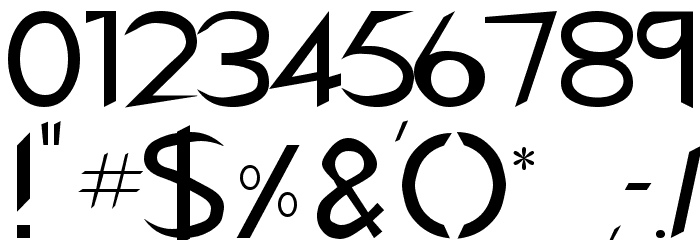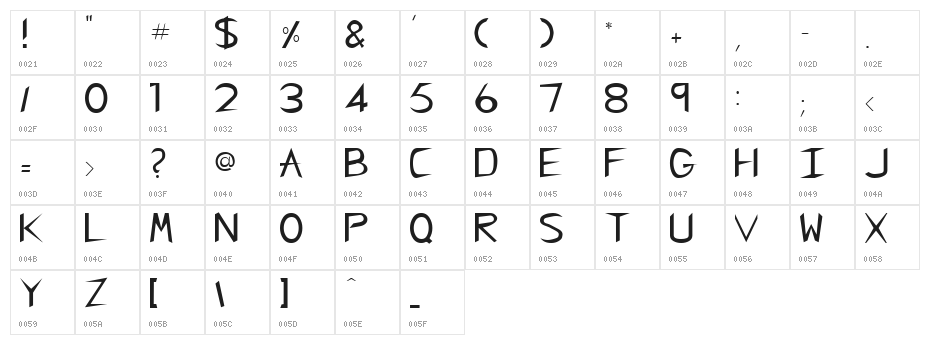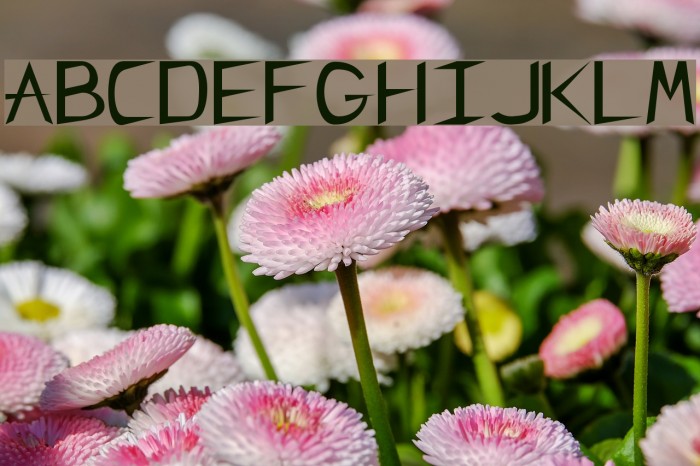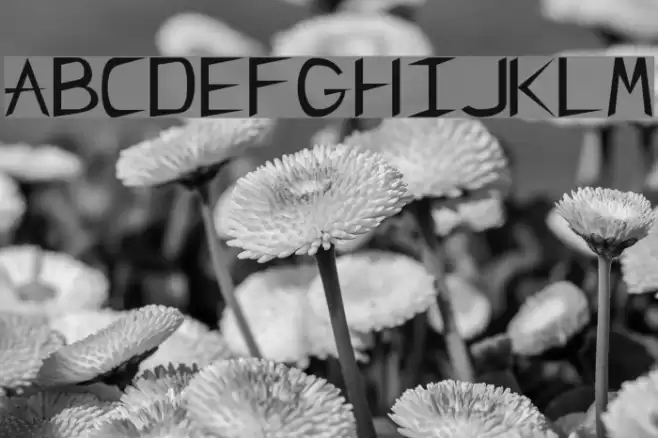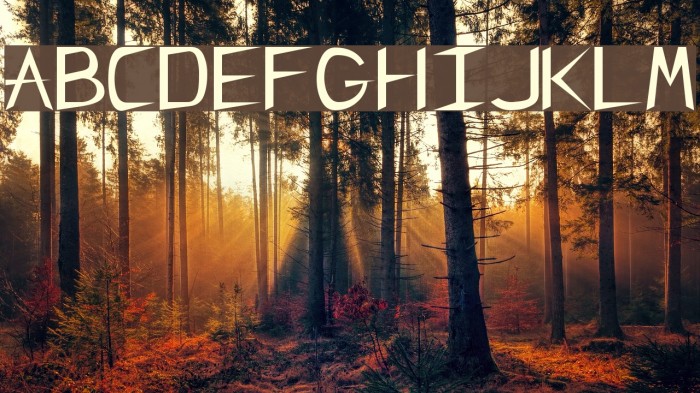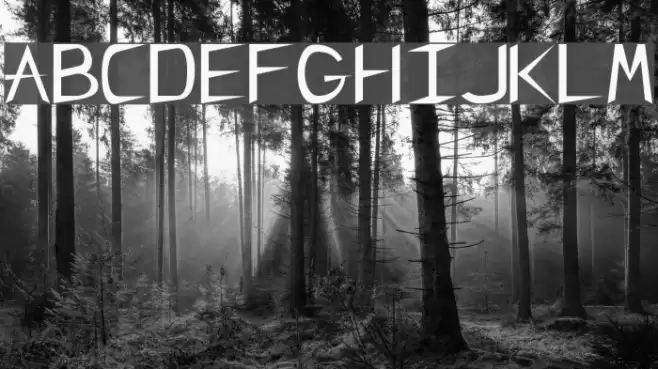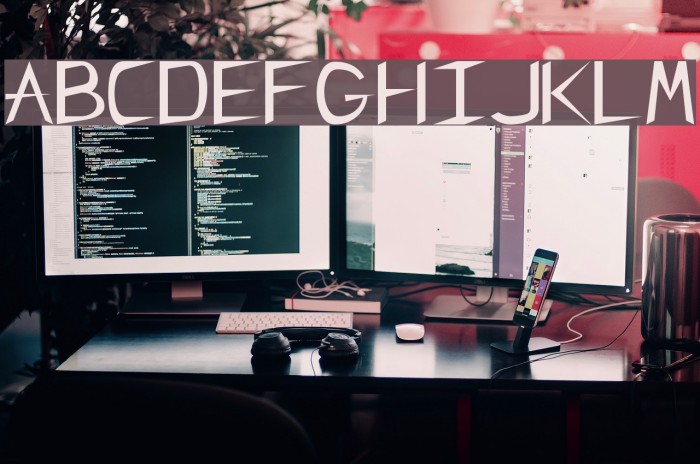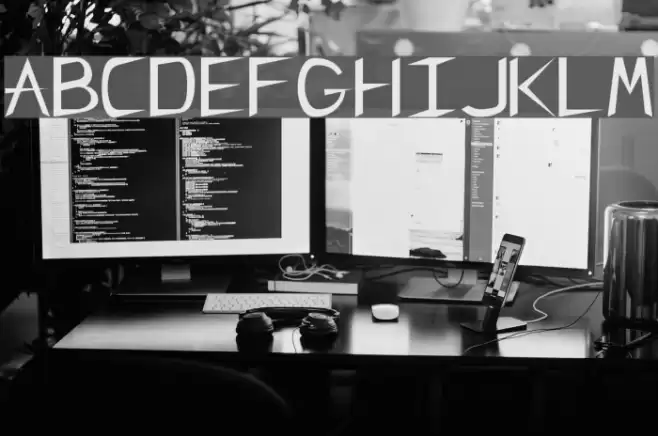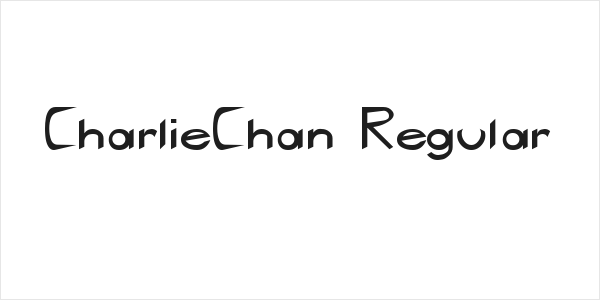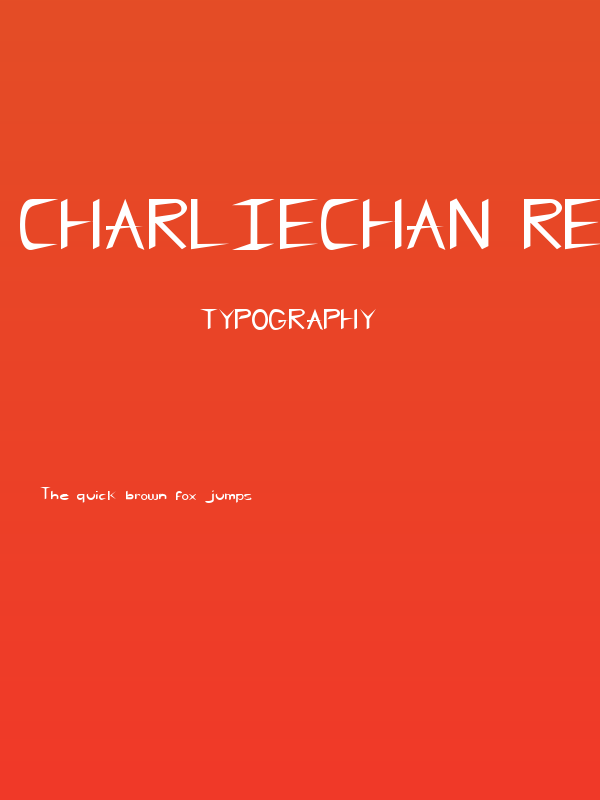
CharlieChan Regular Font
CharlieChan Regular Description
This font features a unique and playful design with a distinctively angular and geometric style. The uppercase letters exhibit sharp, pointed edges and a dynamic, almost futuristic appearance. The lowercase letters maintain a consistent style, with rounded elements that contrast the angular forms, adding a touch of softness. The numerals are bold and clear, with a slight slant that complements the overall design. Special characters are creatively styled, maintaining the font's playful and artistic essence. This font's distinctive character makes it suitable for creative and eye-catching designs.